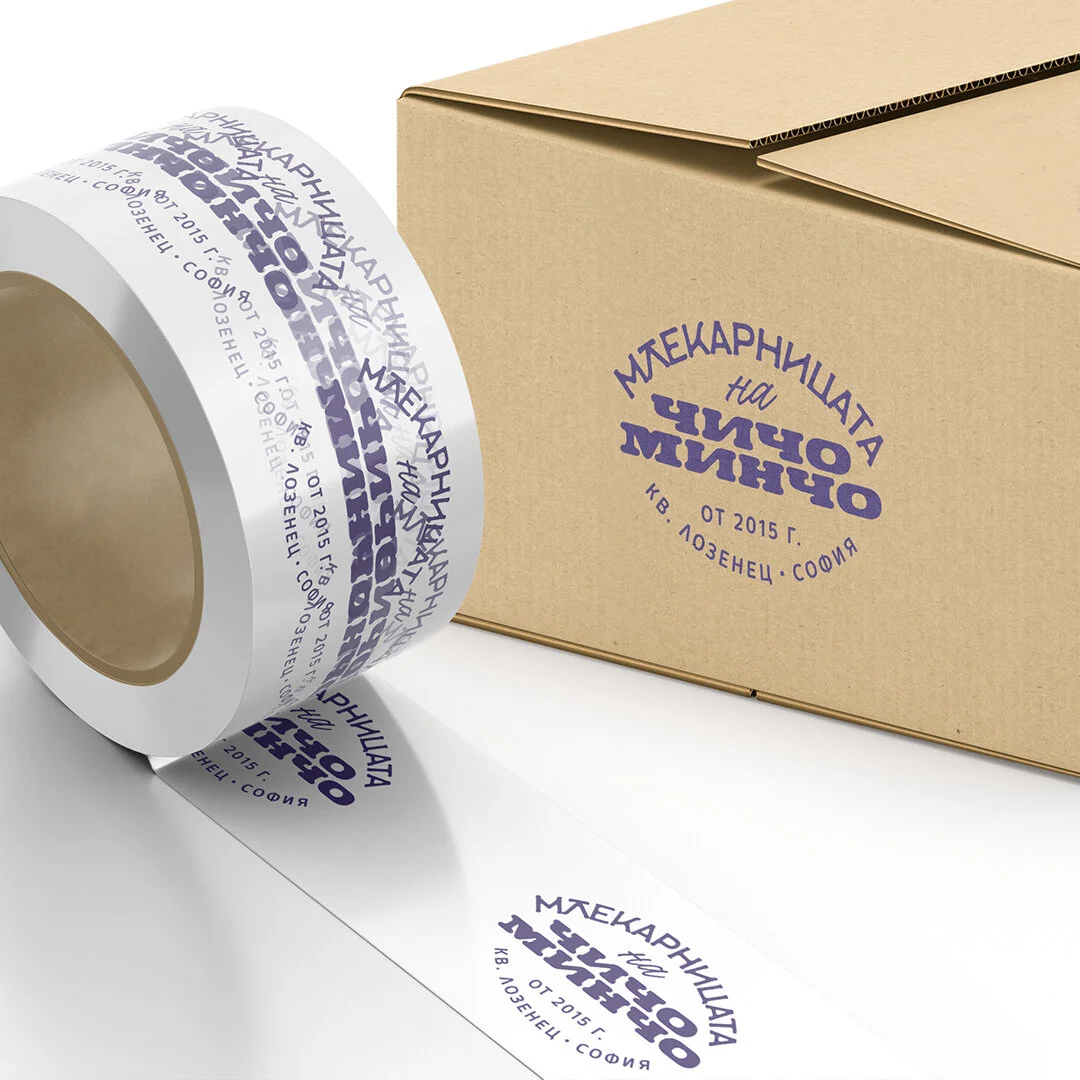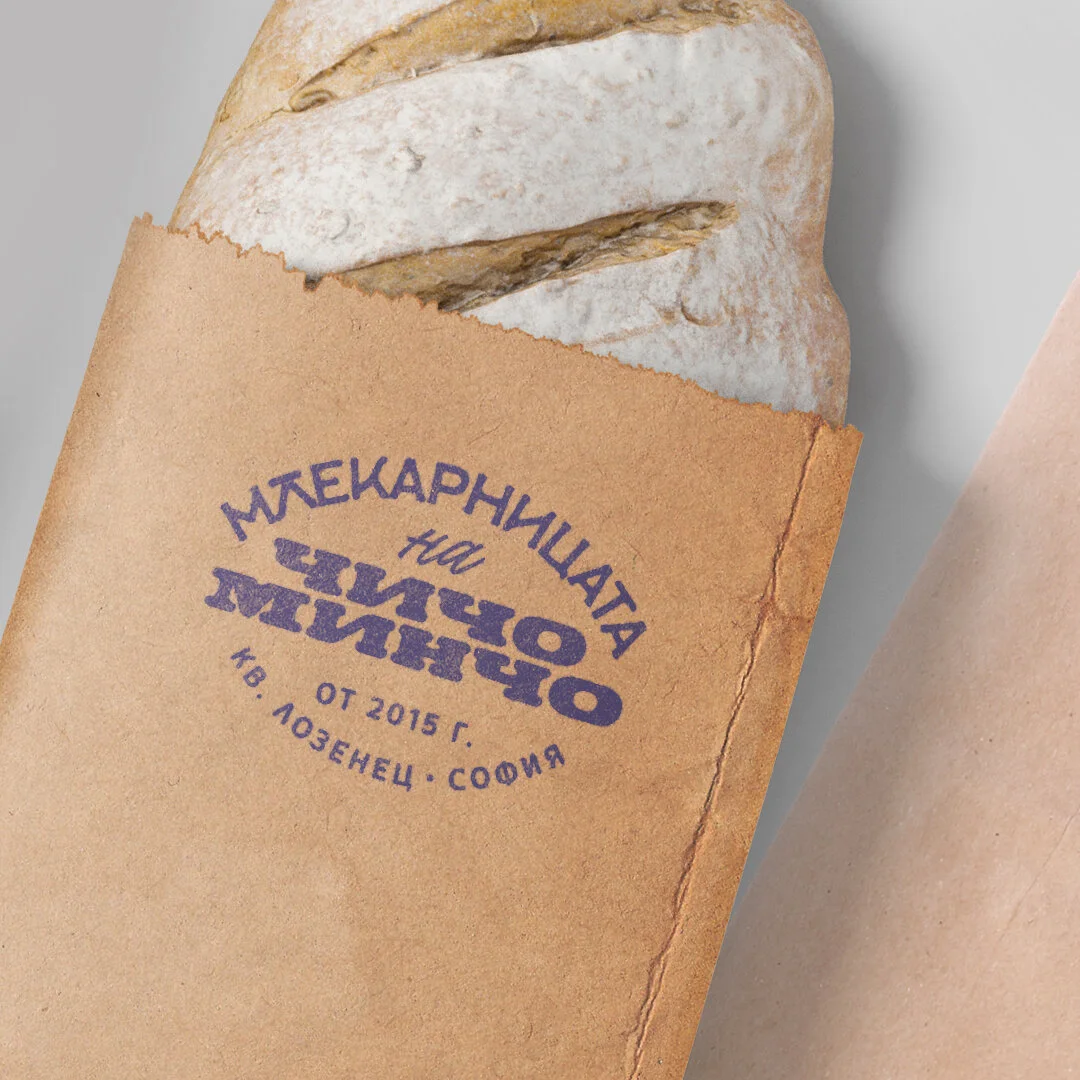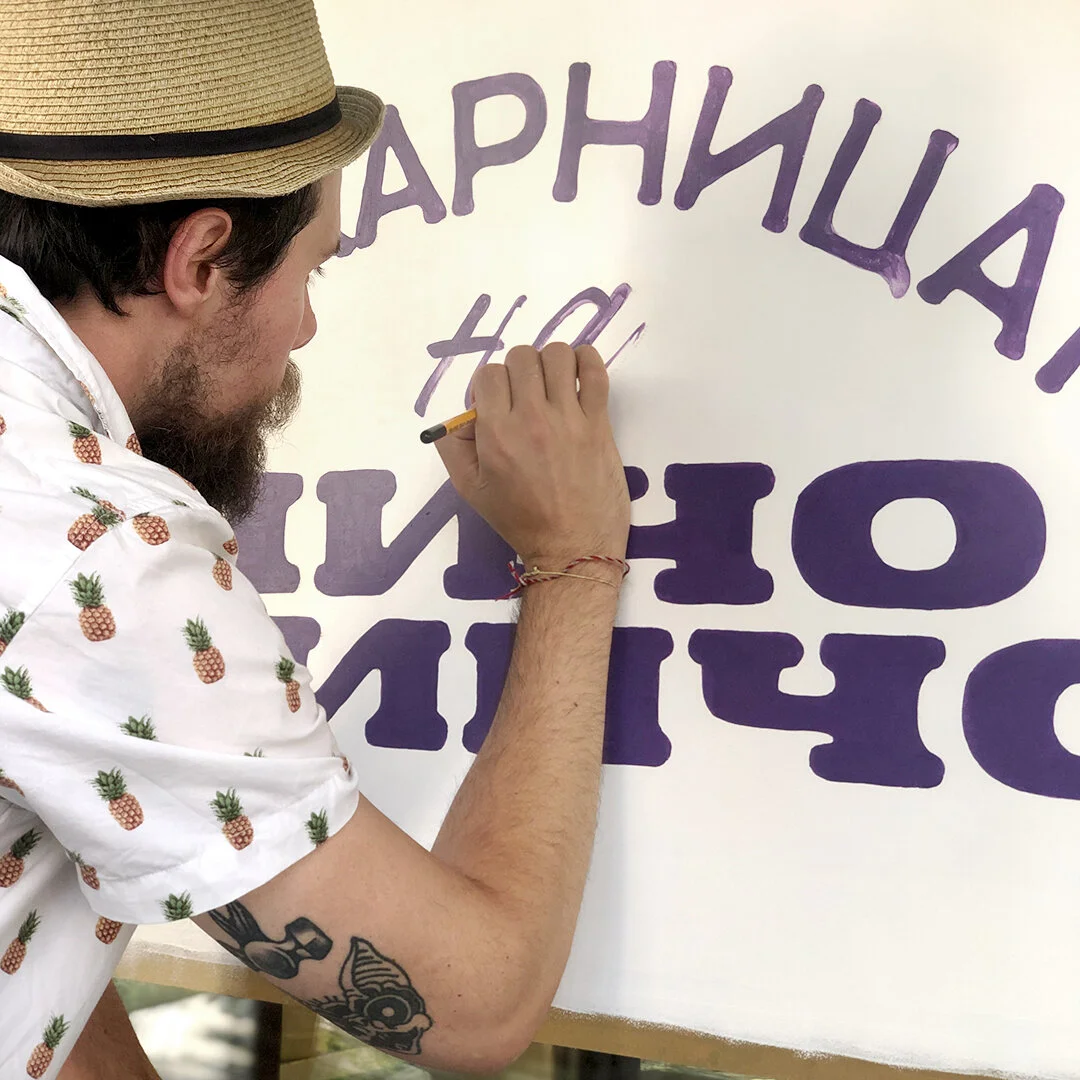
Your friendly neighborhood creamery
Probably one of our quickest commissioned projects to date. This one is a logotype for a small shop selling bio products from independent farmers. No big brands here, just healthy clean produce. It was required of us to make the logo with a rustic and old-timer feel. Since we were working on a budget, we put custom marks and letterings aside and focused on the general typographic composition using ready-made typefaces.
We had the pleasure of doing this window painting on the storefront of the little shop located in Lozenets district, Sofia. We did the logotype in the middle of the summer of 2020 and soon after had the chance to bring it to life. It was a lovely sunny day of pouncing and painting the lettering on the shop window. The happy faces and cheers of the local friends and customers and above all the shop owner himself were most rewarding.